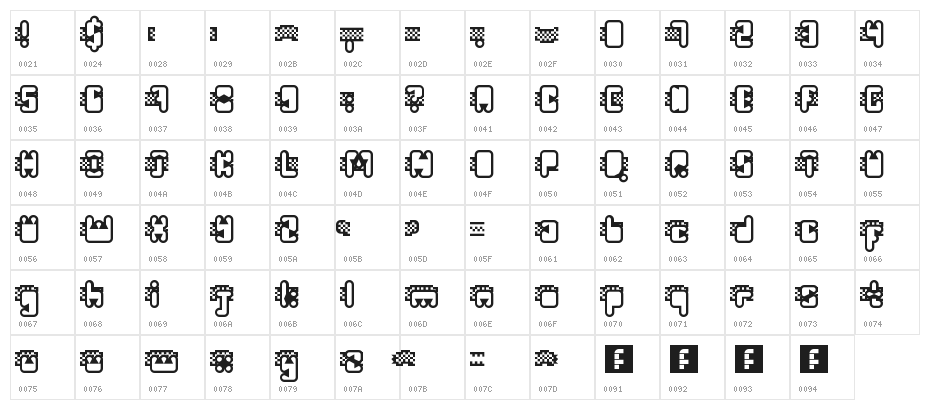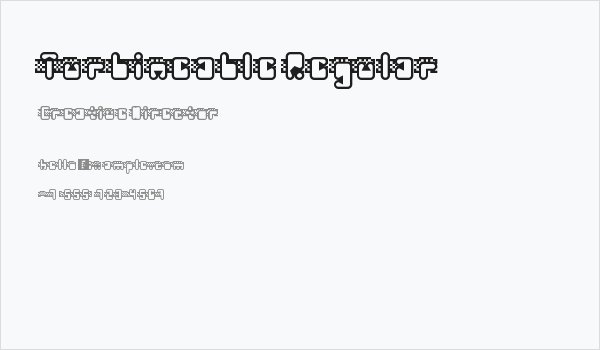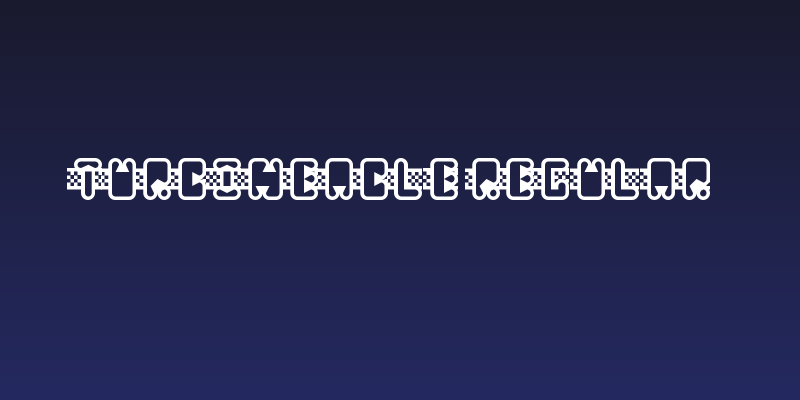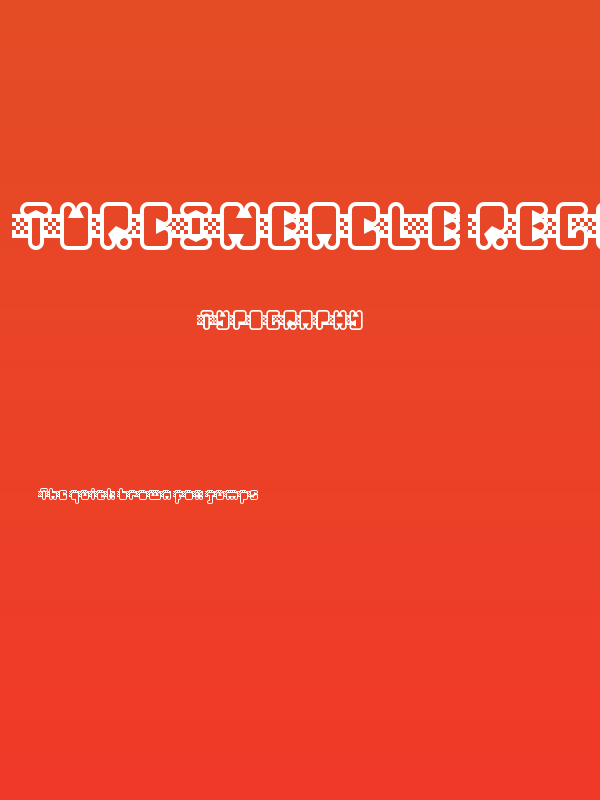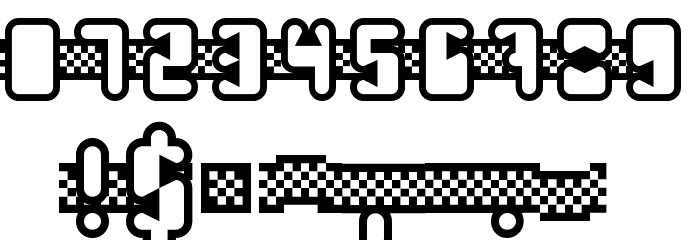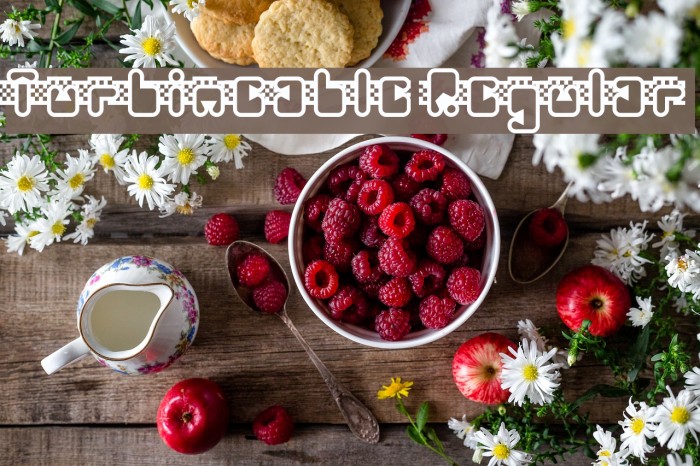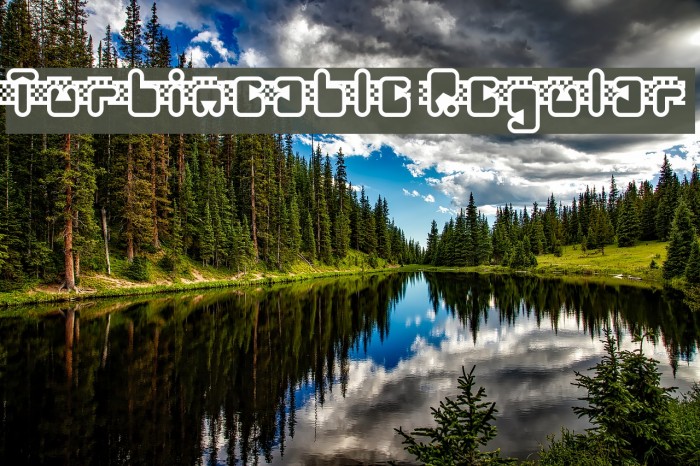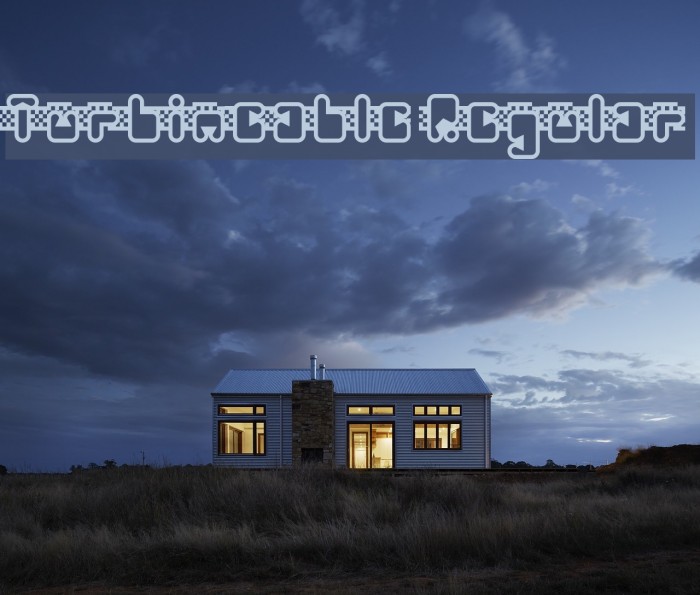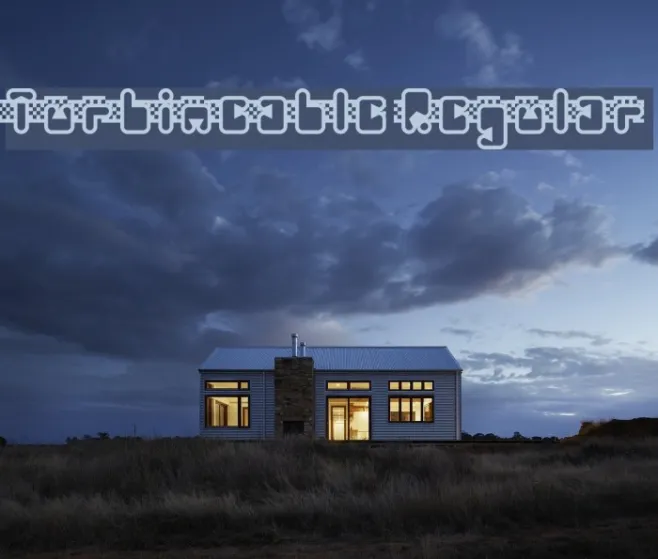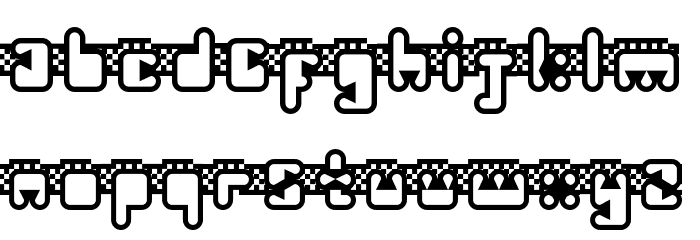
Turbineable Regular Font
This font features a bold, playful design with a unique checkered pattern running through the center of each character. The letters are rounded with a thick outline, giving them a cartoonish and vibrant appearance. The checkered pattern adds a dynamic and energetic feel, making it stand out for creative and fun projects. The font maintains a consistent style across uppercase, lowercase, numbers, and special characters, ensuring a cohesive look. Its distinctive style is perfect for projects that require a lively and eye-catching typeface.
| Overall Style | Playful, Energetic, Modern |
| Proposed Projects | Ideal for children's books, game titles, posters, and playful branding. |